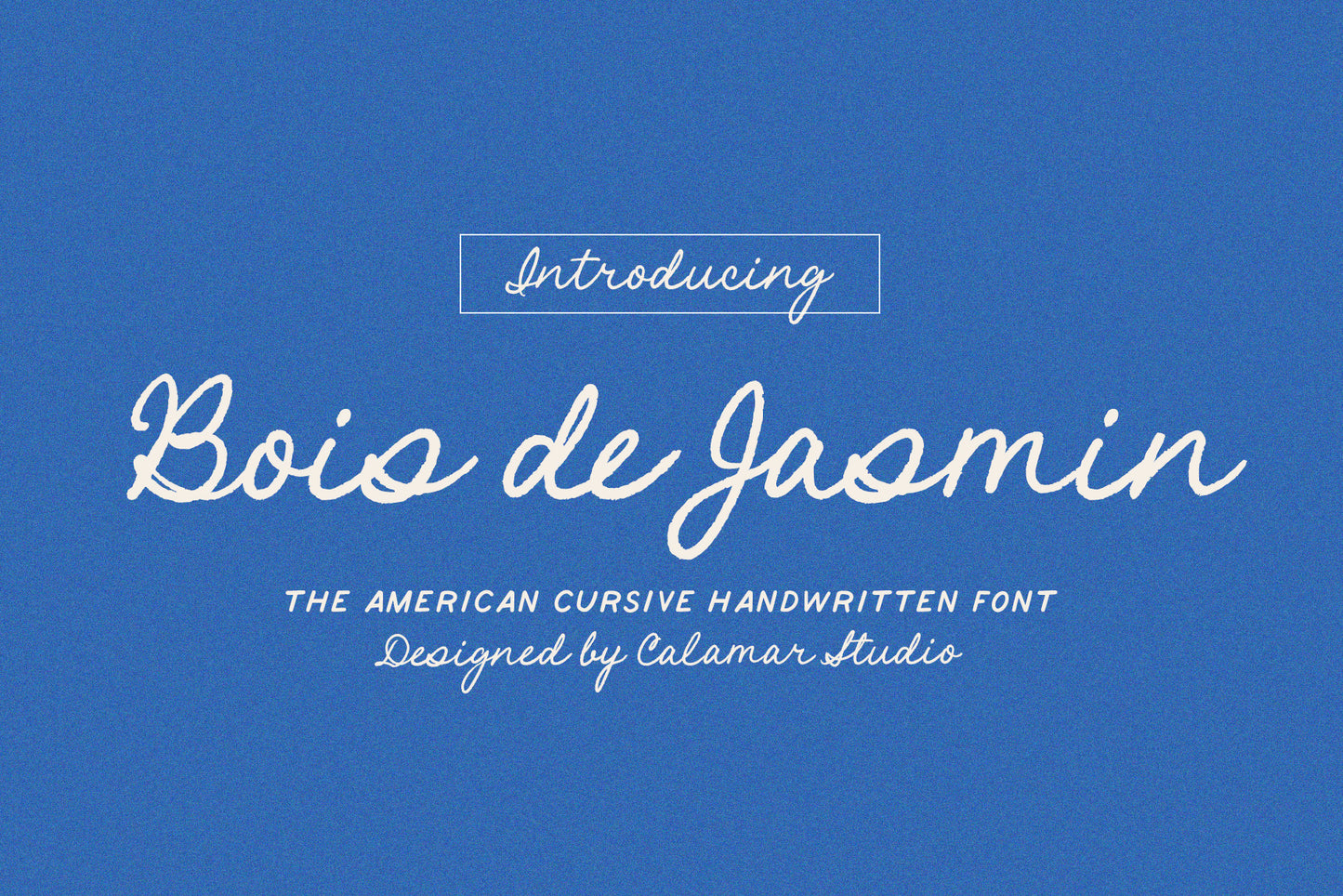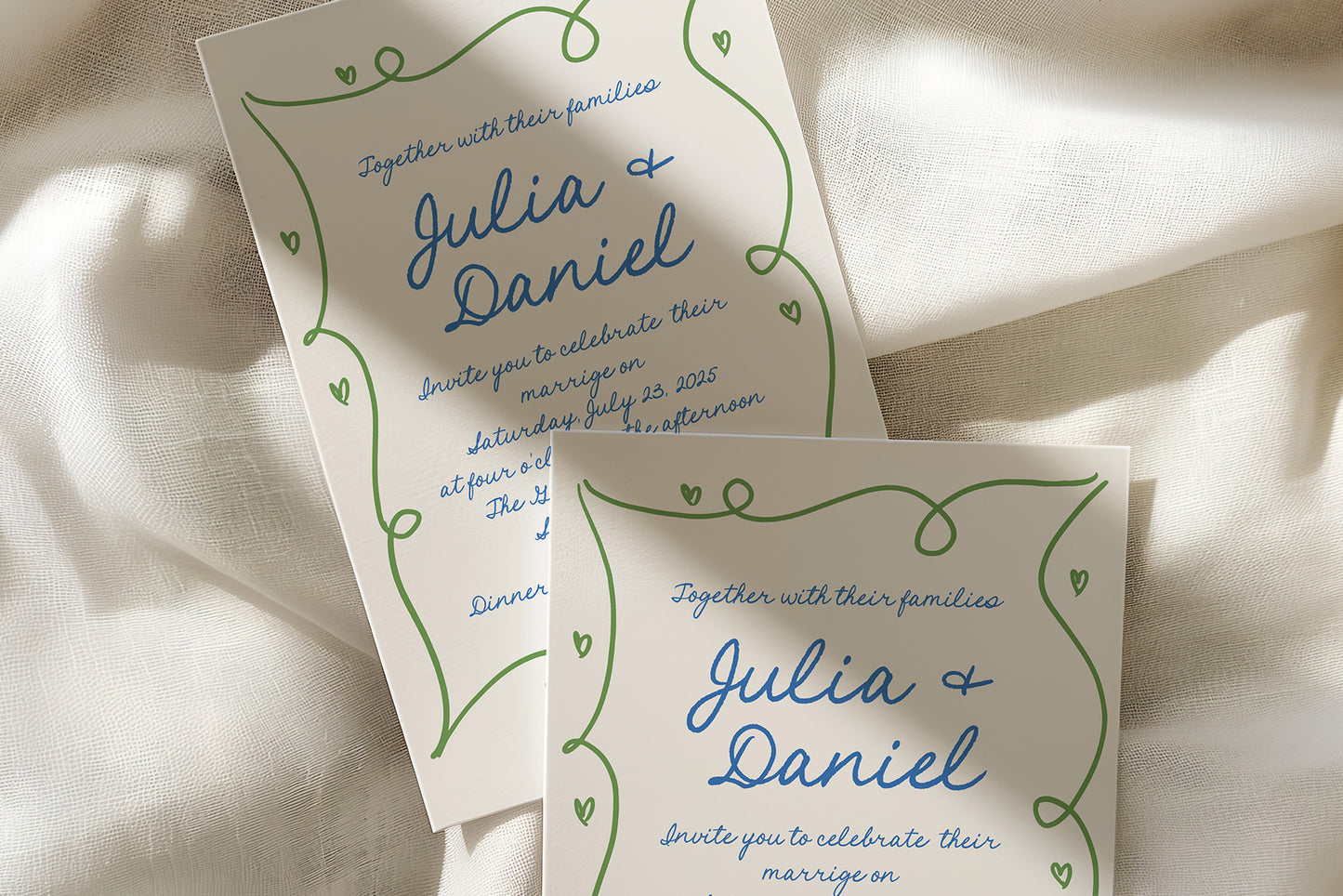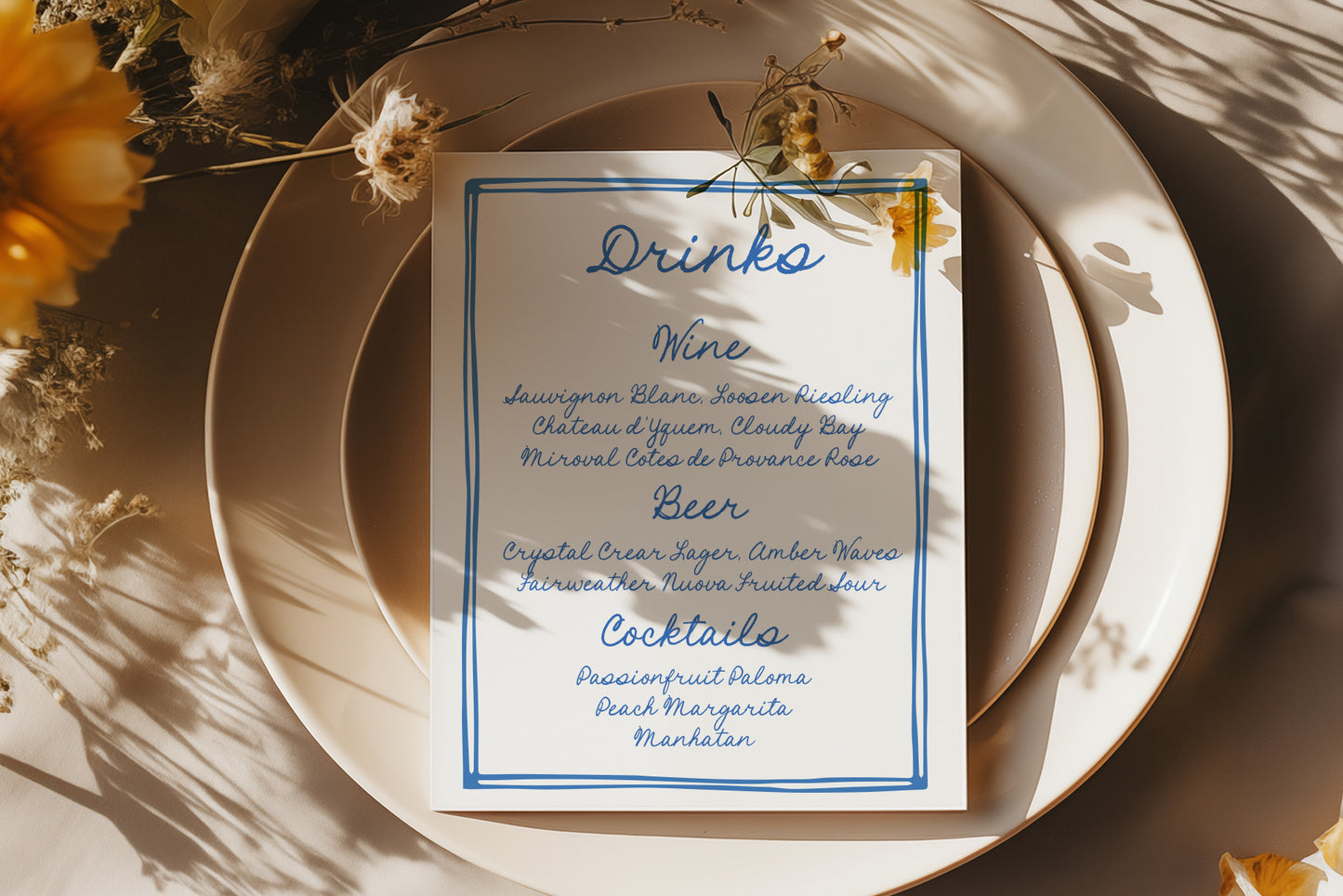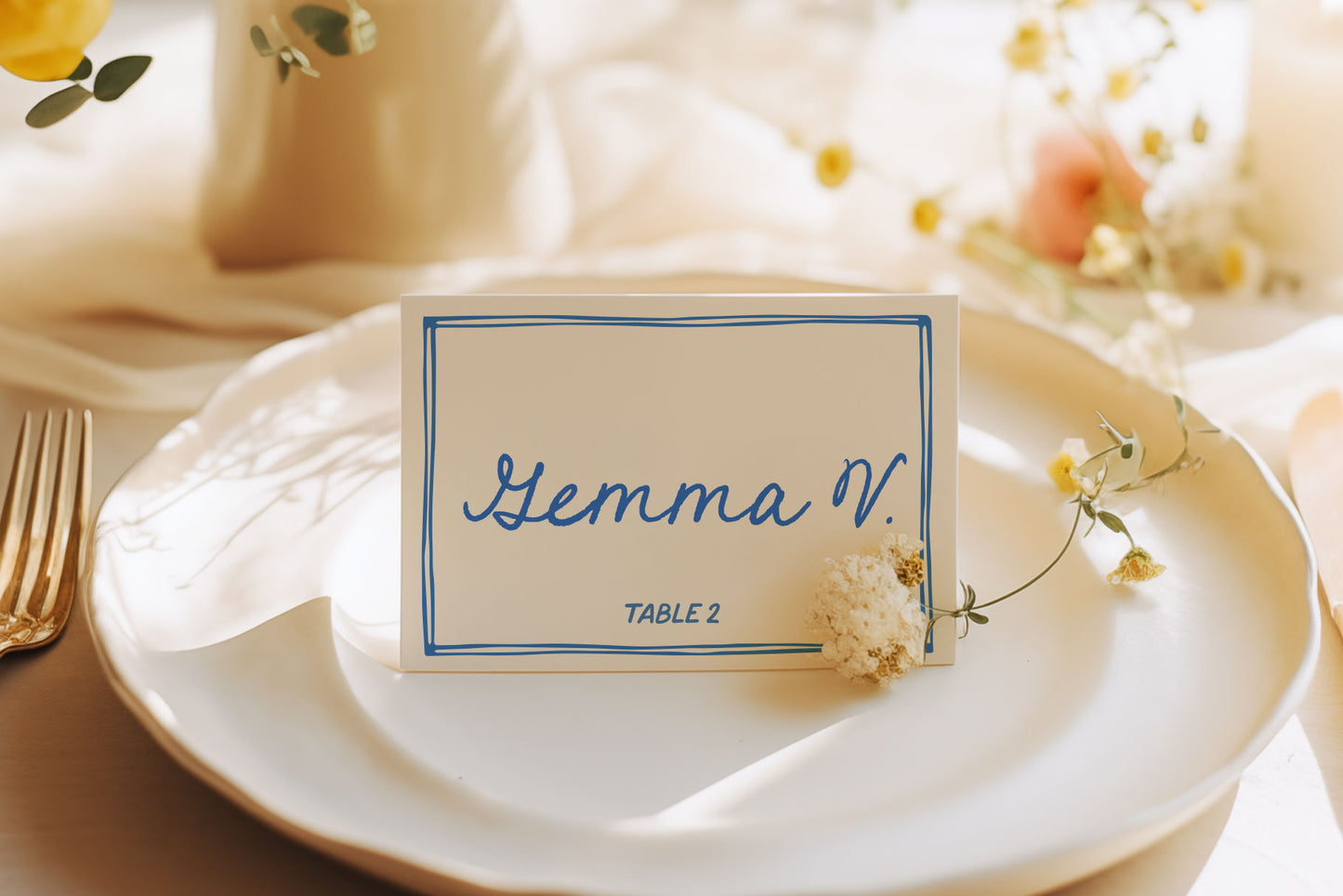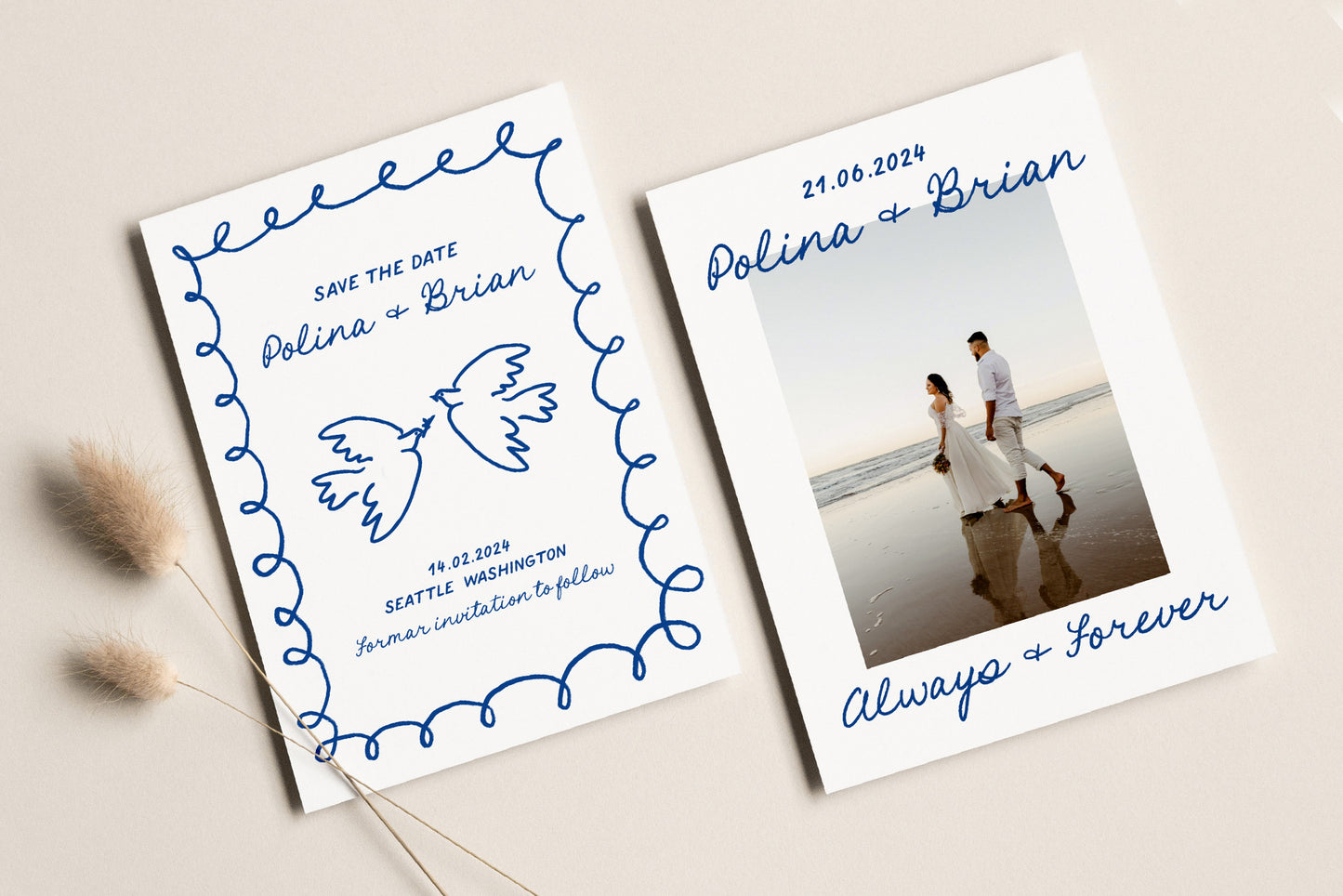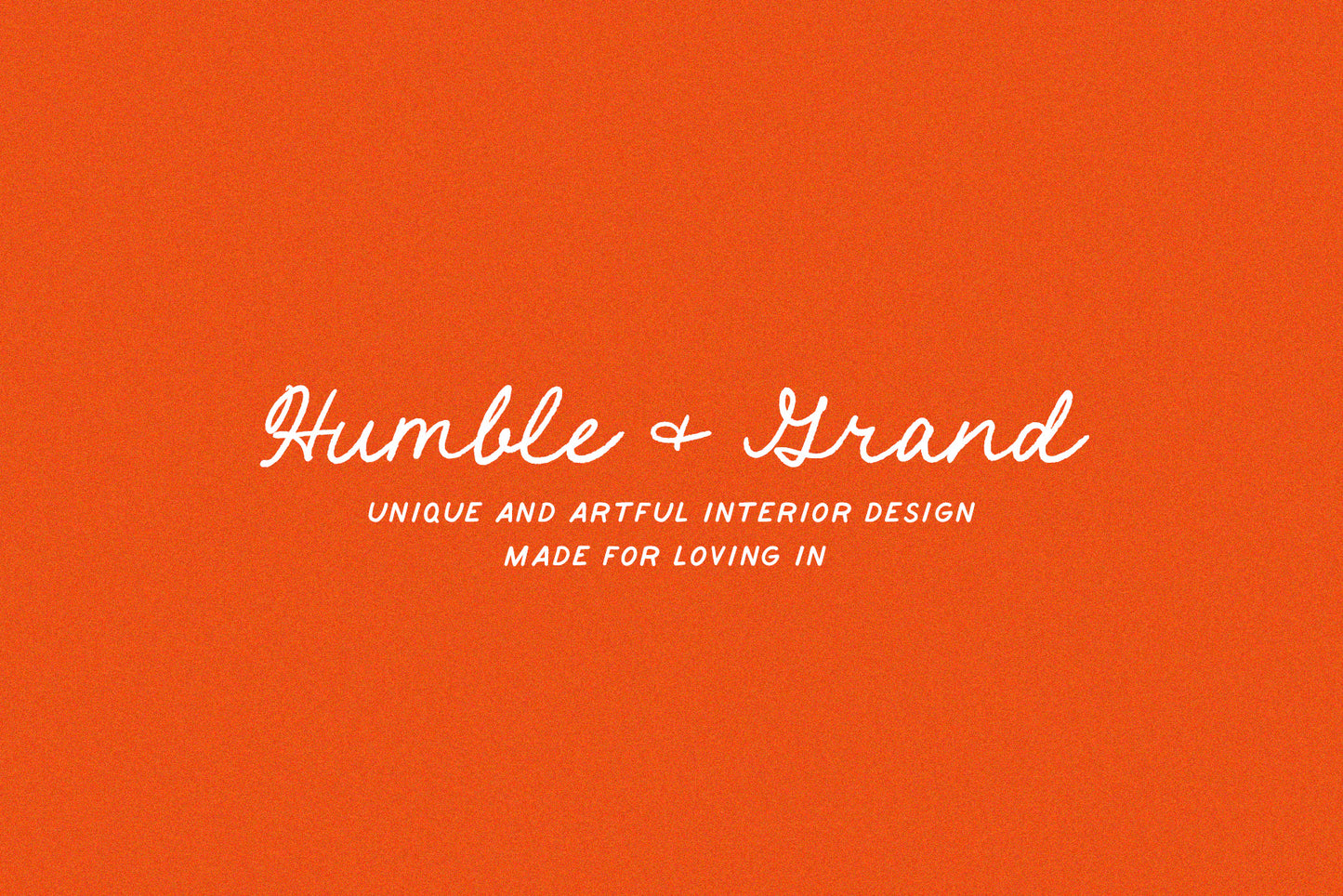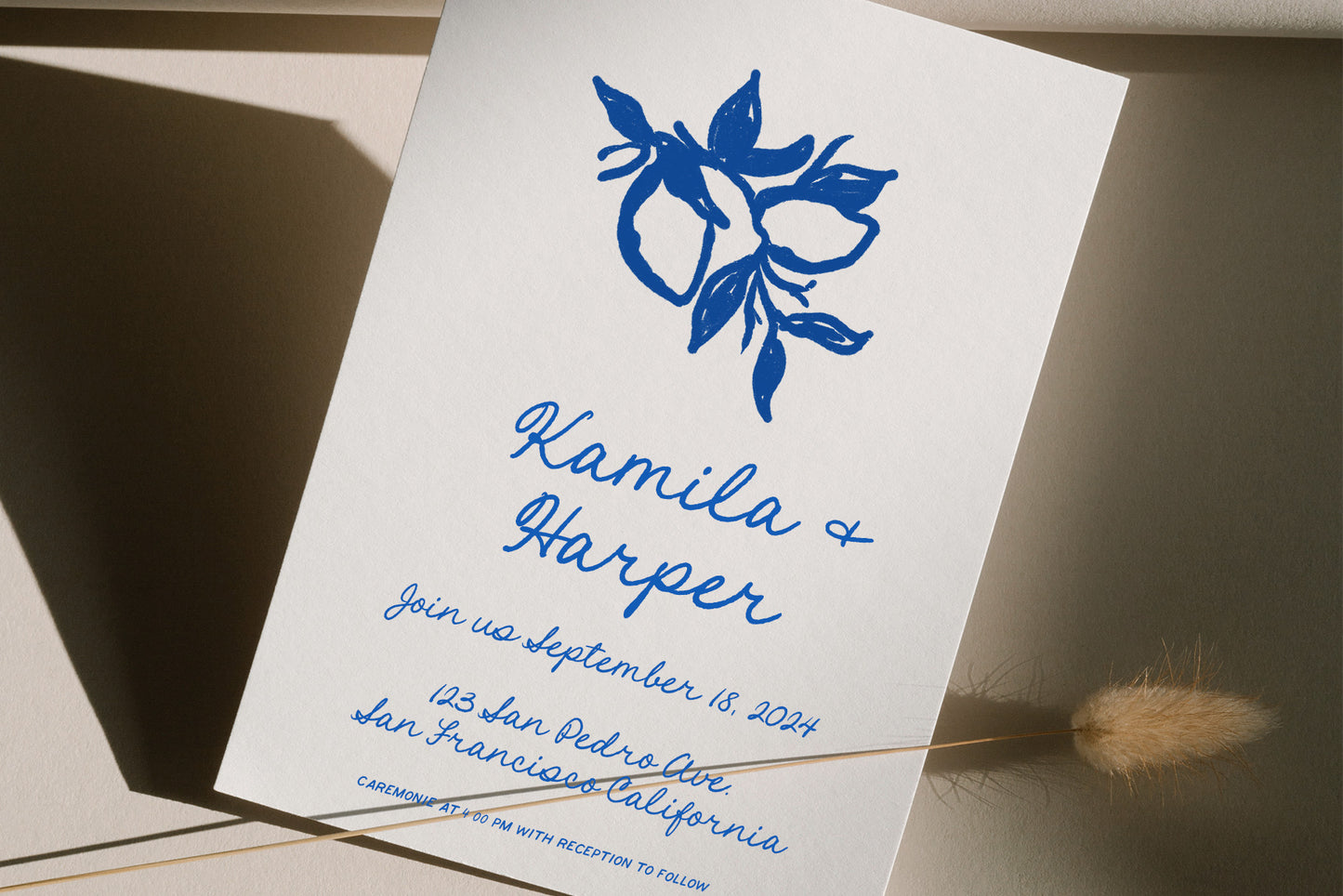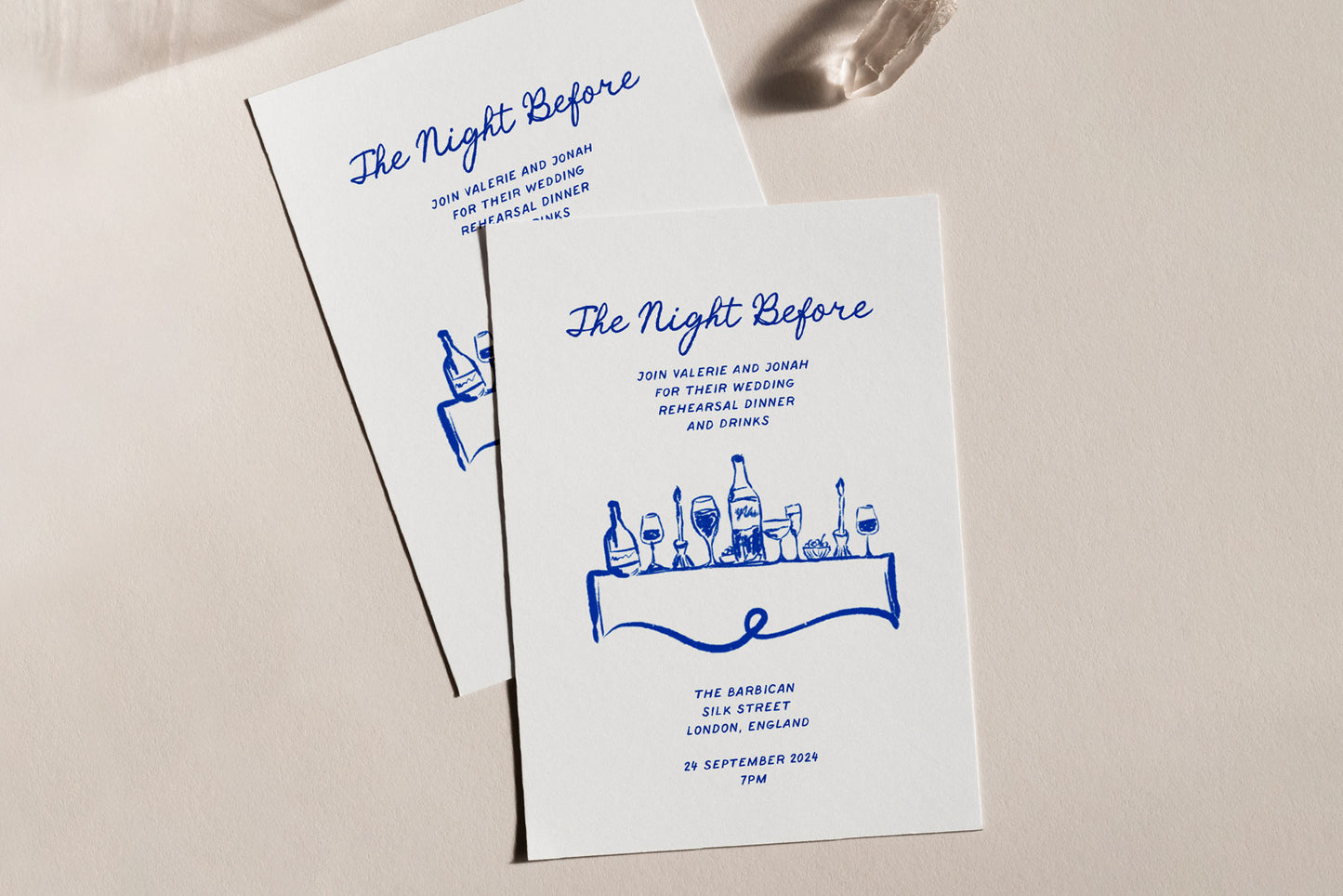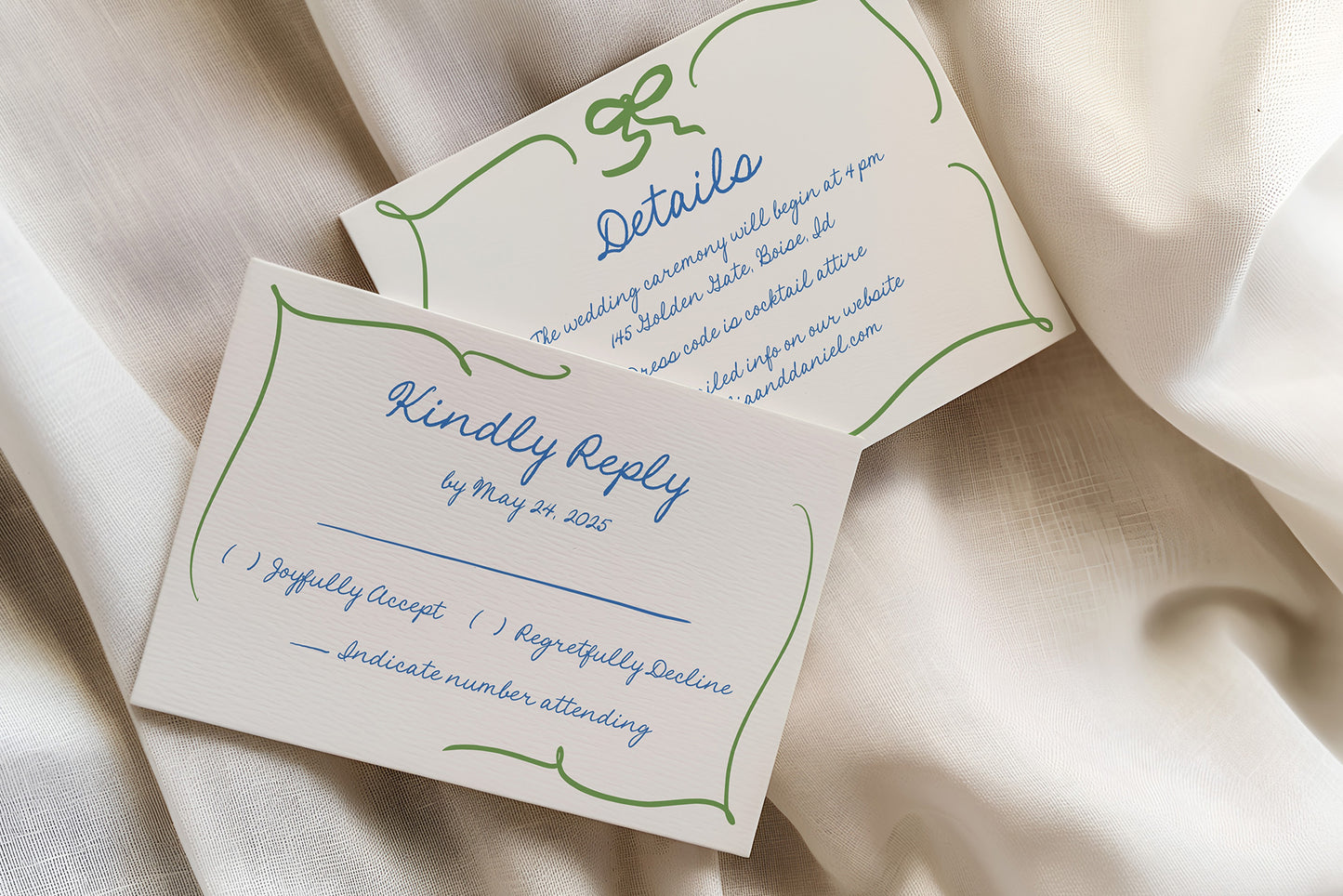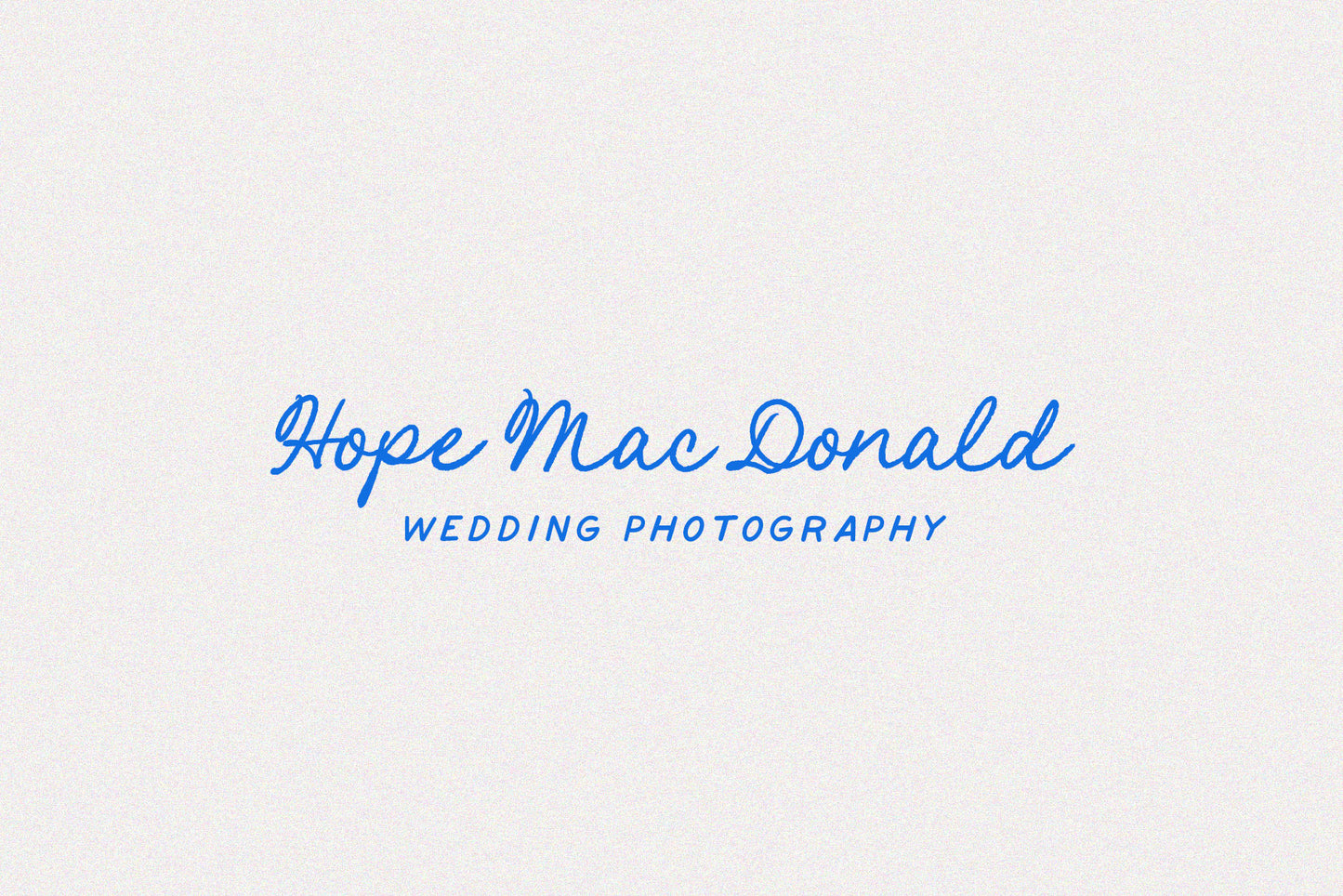
Bois de Jasmin Wedding Font Pair
Handwritten Font Pair in American cursive style - Bois de Jasmin.
It will look great for wedding invitations, greeting cards, stickers, instagram posts, quotes, logo. You don't need any special programs to use this font. All is super easy.